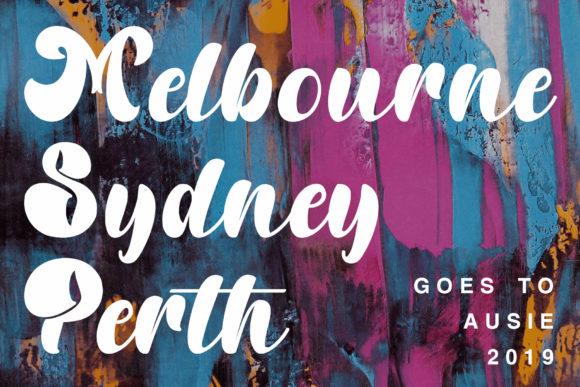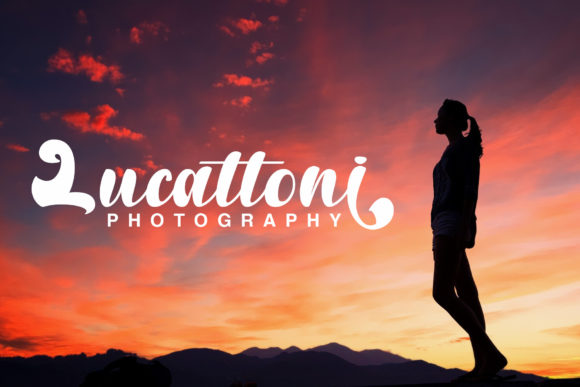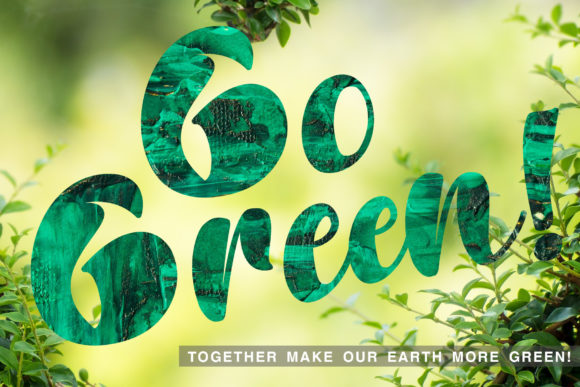
Introduction to Random but Perfect Font
Random But Perfect is a bold and fun handwritten font with an adventurous feel.
It will turn any design project into a stand out .
Key Features of Random but Perfect Font
Why Choose Random but Perfect Font?
Random but Perfect Font offers exceptional quality and versatility, making it a valuable addition to your design toolkit. Whether you’re creating for personal projects or commercial use, Random but Perfect Font delivers professional results.